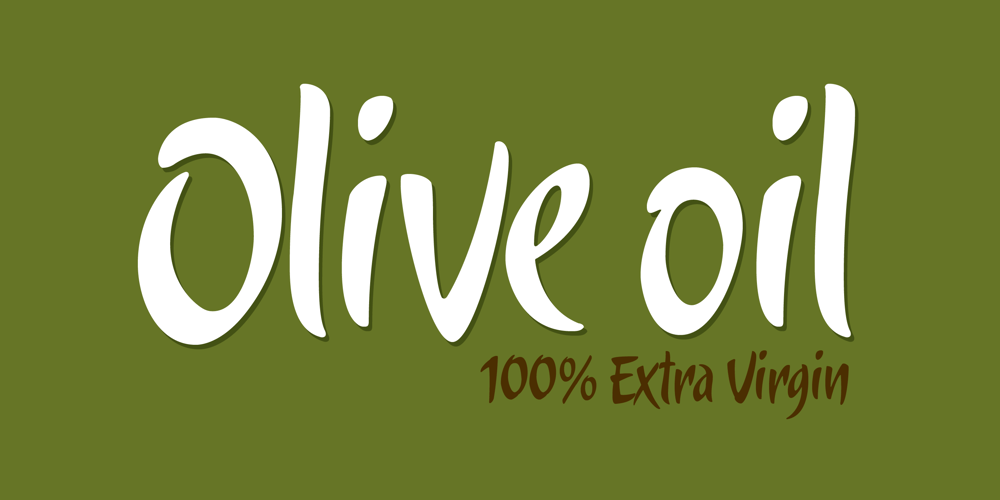
Candombe Pro Font Family was designed by Alejandro Paul, Angel Koziupa and published by Sudtipos. Candombe Pro contains 1 styles and family package options. Prolific calligrapher Angel Koziupa and designer Alejandro Paul charm us once again with an imaginative typeface. Named after the Afro-Uruguayan drum-based rhythm, Camdombe conveys both a upbeat spirit and youthful joy. Its unique forms dance with each other, complementing their wild, brush-lettered origins. This inherent spontaneity makes it an ideal choice for signage, titles, and greeting cards.